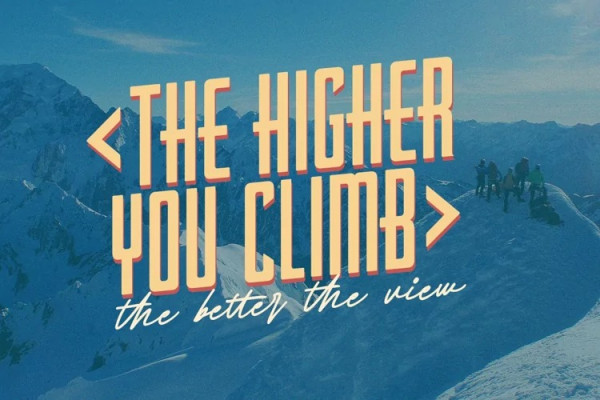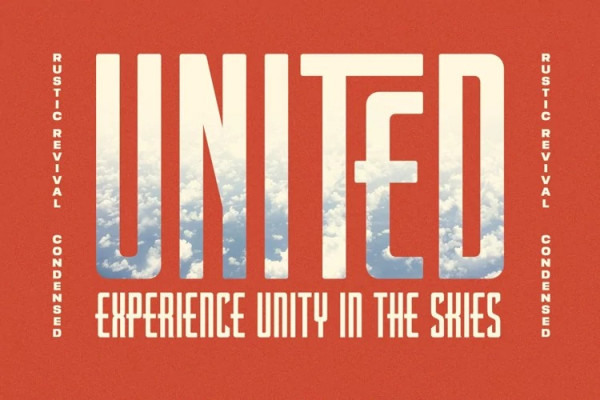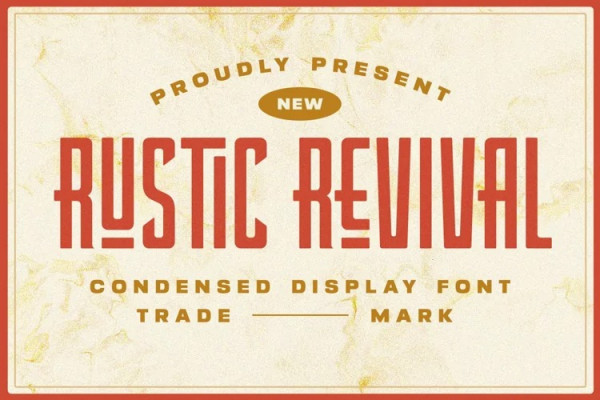
Rustic Revival Font
Rustic Revival Font ligature option. These unique character combinations add visual interest and flow to your text, giving it a casual and classic style, perfect for eye-catching posters, Attention-grabbing banners and impactful headlines, Rustic Revival helps your design stand out from the crowd and draw attention to a lasting impression.